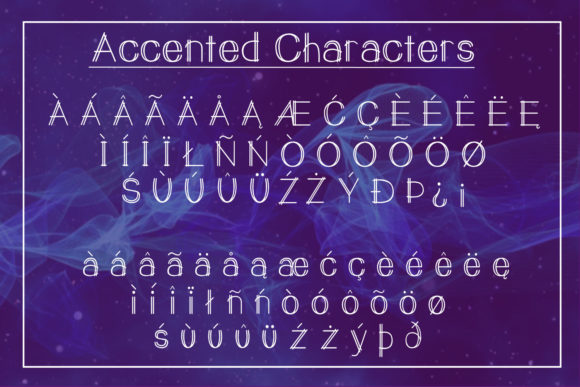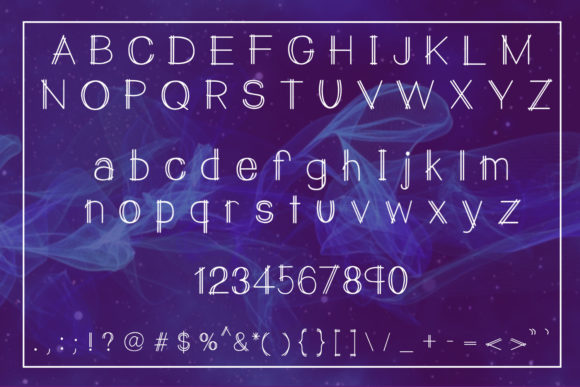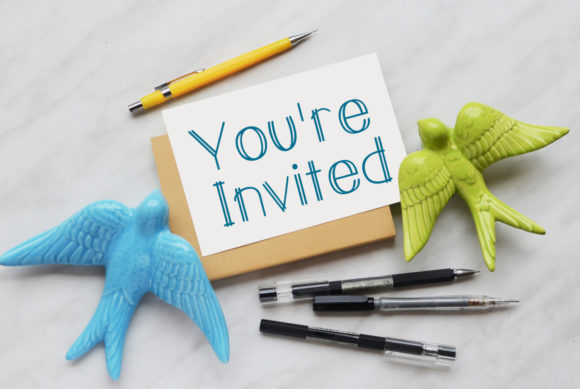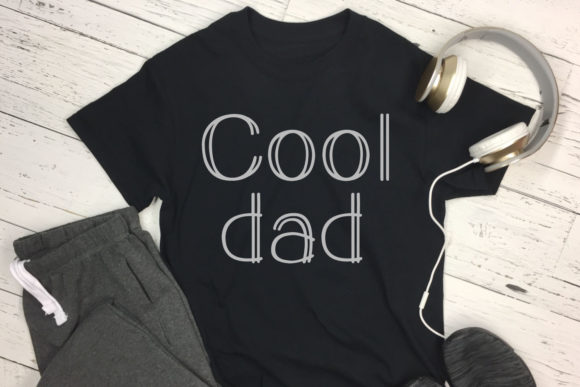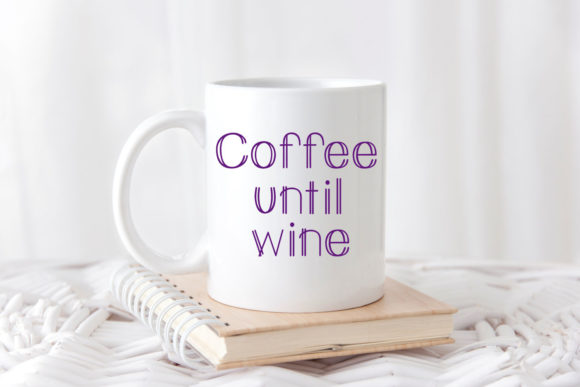
Introduction to Double Vision Font
Double Vision is a modern handwritten font made up of capital and lowercase letters A-Z, numbers 0-9, punctuation, and accented characters.
Key Features of Double Vision Font